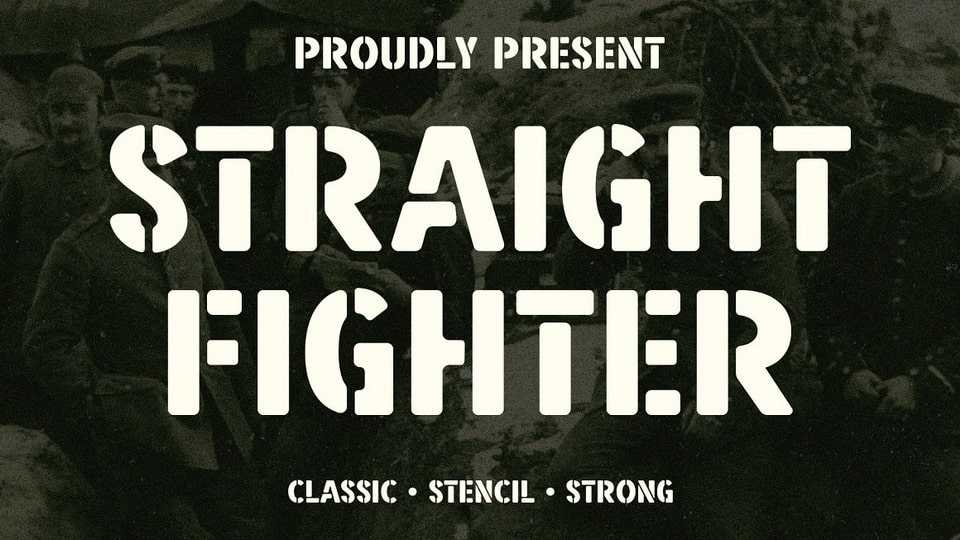
Download Straight Fighter font, a stencil display typeface that exudes strength, masculinity, and bravery. With unique stencil cutting and letter shapes, Straight Fighter font features bold lettering that demands attention.